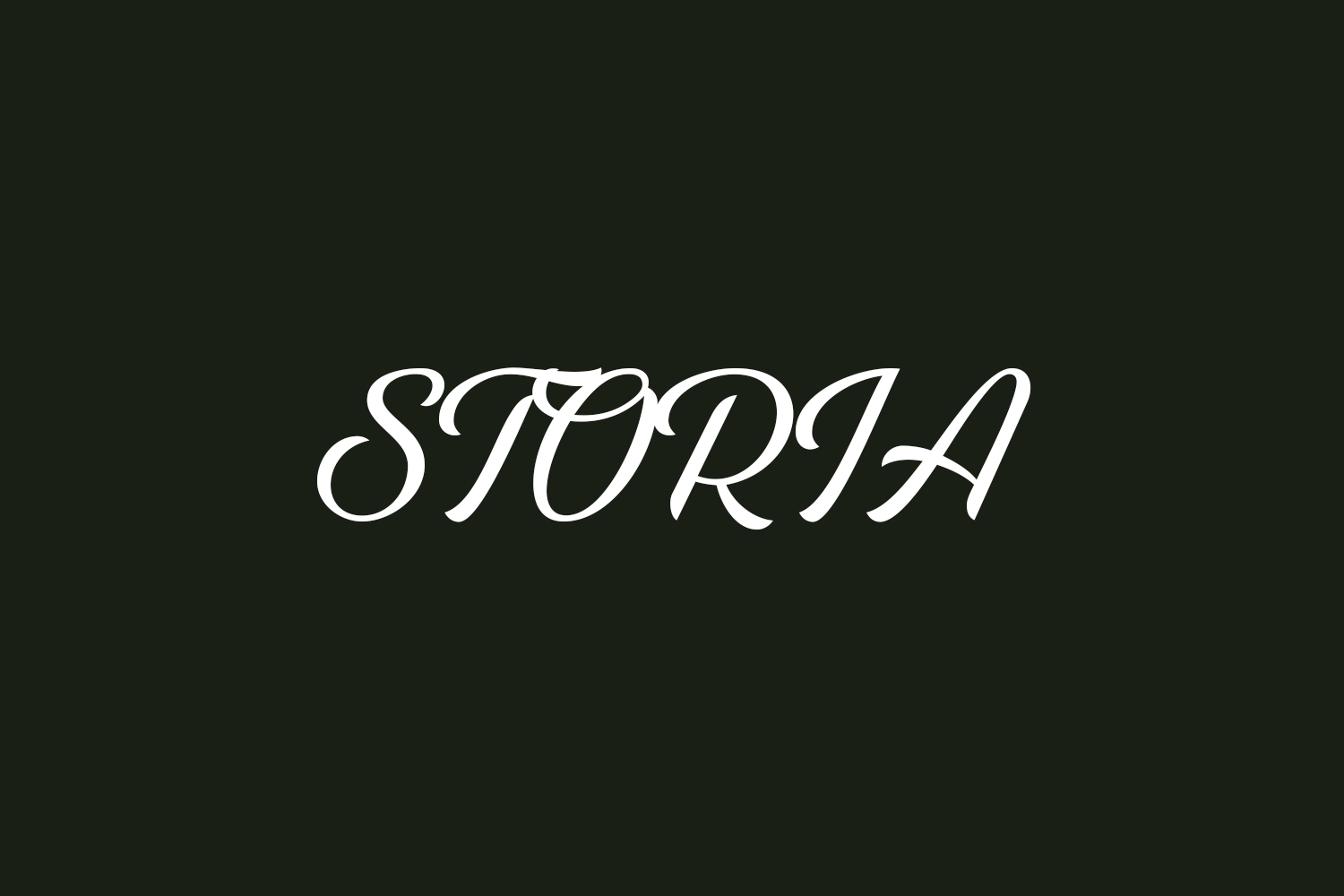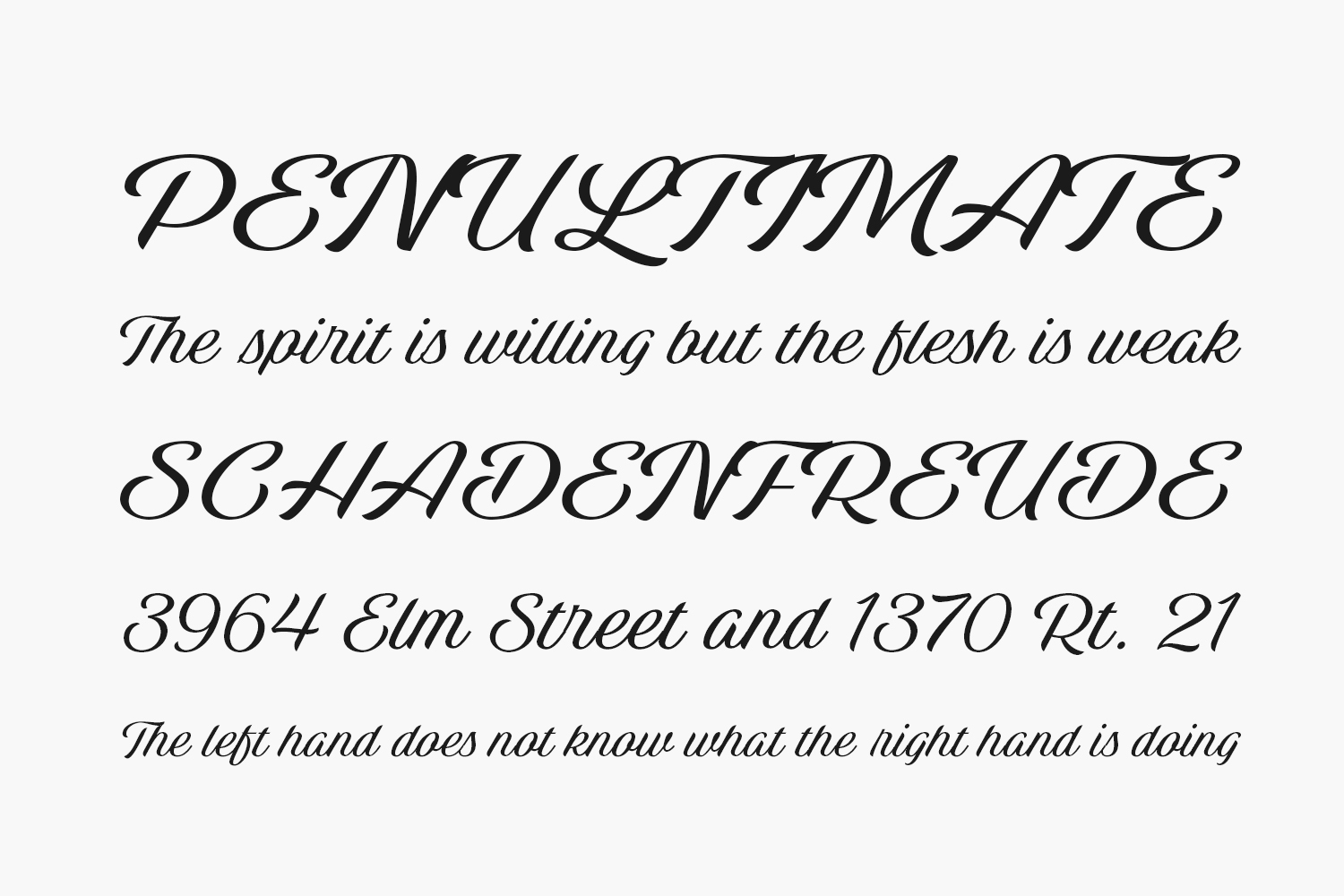
Storia Free Font Family is a romantic and sweet calligraphy typeface with characters that dance along the baseline. It has a casual, yet elegant touch. Storia Free Font Family was designed by Letteralle Studios and is free for personal use only. Please purchase the full version for commercial use.
Storia Light The quick brown fox jumps over the lazy dog
Storia Regular The quick brown fox jumps over the lazy dog